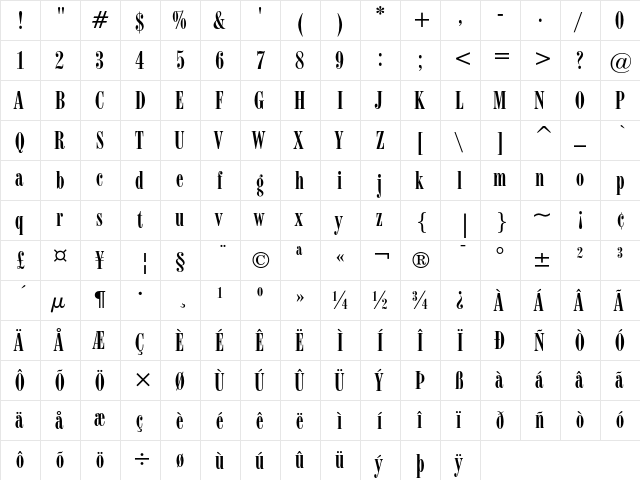
Modern 735 Regular
Modern 735 offers clean, dependable letterforms without strong stylistic allegiance, making it a practical choice for designers who need flexibility.